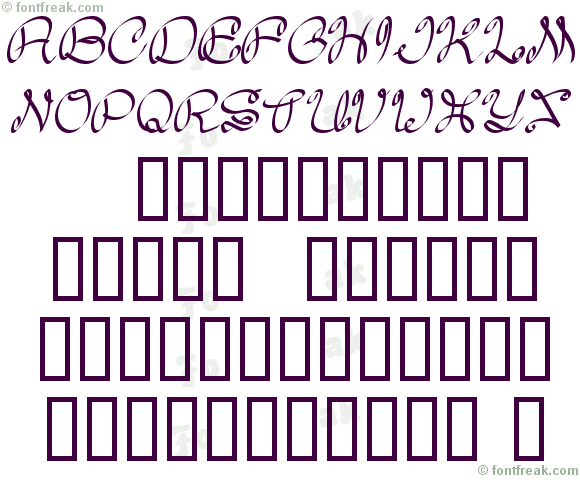
Daisy
About Daisy
The Daisy font, crafted by Rafael Dinner in 1994, is a captivating display typeface that embodies a unique blend of elegance and charm. This shareware font showcases a distinctive handwritten style, characterized by its playful strokes and fluid forms. The strokes exhibit a moderate weight, providing a balanced contrast that enhances readability while retaining a whimsical aesthetic. The spacing between characters is thoughtfully designed, allowing for a seamless flow that invites the eye to dance across the text. Decorative elements are subtly integrated into the design, contributing to a fresh and inviting appearance.
Daisy is particularly well-suited for a variety of creative applications. It excels in wedding invitations, where its romantic flair can add a personal touch to special announcements. Additionally, its playful character makes it an ideal choice for children's book covers, drawing attention and sparking interest. Restaurant menus can also benefit from this font, as it conveys warmth and approachability, making the dining experience feel inviting. Furthermore, Daisy is perfect for branding projects aimed at small businesses, where a unique and memorable typeface can help establish a distinct identity.
Target audiences for the Daisy font include graphic designers, small business owners, and content creators looking to elevate their projects with a touch of creativity. Its versatility and charm make it an appealing choice for those who wish to stand out in a crowded market.
What sets the Daisy font apart is its delightful combination of readability and artistic flair. The careful craftsmanship by Rafael Dinner ensures that this typeface not only serves functional purposes but also evokes emotion and creativity. For those interested in exploring this enchanting typeface, a Daisy font free download offers an excellent opportunity to incorporate its unique style into your own designs.